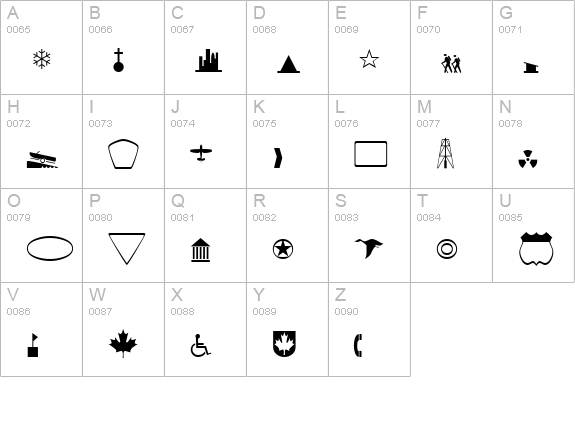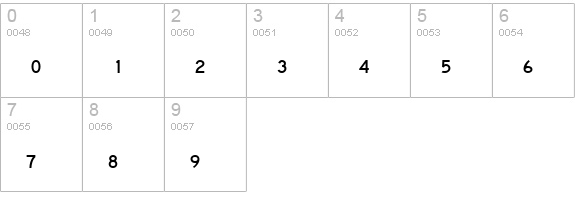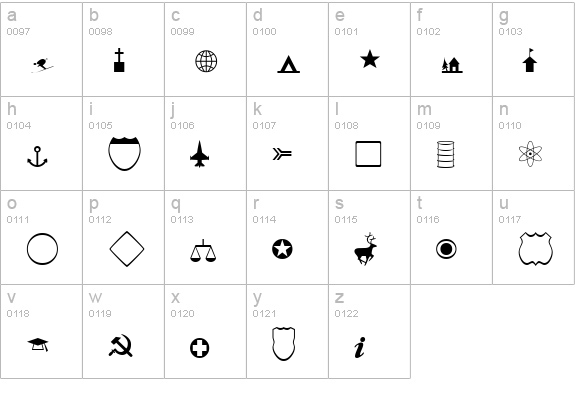
CartographerSSK Font Details
CartographerSSK is a versatile and elegant font that is perfect for adding a touch of sophistication to your designs. Its unique style and clean lines make it a great choice for a wide range of projects, from branding to invitations to web design. Whether you're looking for a font that exudes class and professionalism or one that adds a modern twist to your creations, CartographerSSK has you covered. Best of all, CartographerSSK is available for free download at FontsMarket.com! This means you can start using this beautiful font in your projects right away, without having to worry about any licensing fees. So why wait? Download CartographerSSK today and take your designs to the next level!